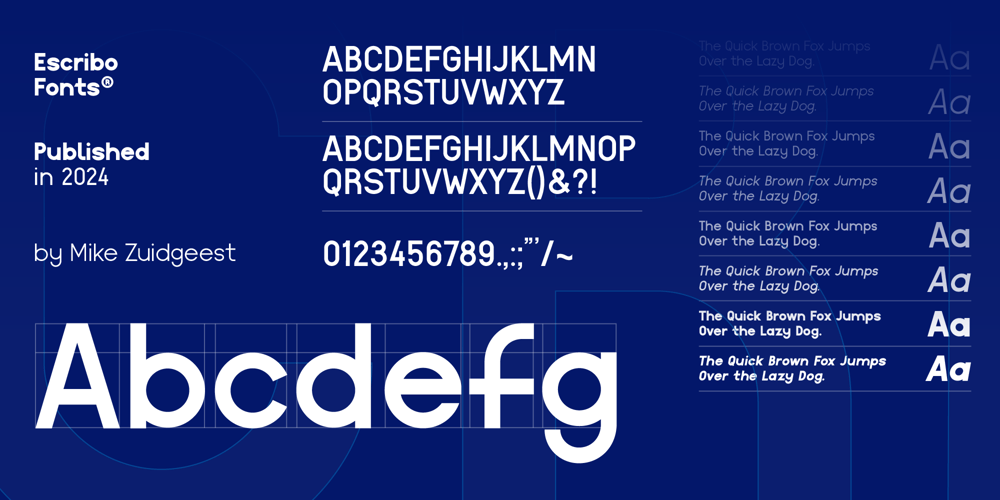
Escribo Font Family was designed by Mike Zuidgeest and published by Mike Zuidgeest. Escribo contains 8 styles and family package options. Escribo FontEscribo is a handcrafted sans-serif typeface by Dutch designer Mike Zuidgeest, based in Rotterdam. This font combines modern elegance with a unique character, standing out among fonts like Roboto, Lato, Open Sans, and Montserrat. Escribo comes in 8 weights, ranging from Regular and Italic to Black, offering versatility for various design needs.Elegance and VersatilityEscribo’s clean lines and balanced proportions make it perfect for diverse projects, from branding and editorial content to web design. Its refined simplicity enhances readability and adds sophistication to any application.Stylish and ModernEscribo brings a contemporary style to your designs. Its well-crafted letterforms ensure visual appeal and functionality, making it ideal for brands that value both aesthetics and usability.Royal AppealExuding a subtle sense of royalty, Escribo conveys confidence and authority. This quality makes it an excellent choice for brands aiming to project prestige and excellence.Strategic DesignMike Zuidgeest’s strategic approach ensures Escribo balances beauty and usability. Each glyph is crafted for optimal legibility across various media, making Escribo versatile for both digital and print formats.Handcrafted UniquenessEscribo’s handcrafted charm reflects Zuidgeest’s creative vision, adding authenticity and character. This distinctiveness makes Escribo stand out, offering a unique option for designers seeking originality.Ideal for BrandingEscribo’s elegance, style, and range of weights make it perfect for branding. It adapts seamlessly to various brand aesthetics, enhancing logos, taglines, and marketing materials. Escribo boosts brand recognition and leaves a lasting impression.ConclusionEscribo is more than a font; it’s a strategic design tool that combines elegance and style. Its unique, handcrafted quality and modern aesthetic make it ideal for elevating visual identities. Created by Mike Zuidgeest, Escribo blends form and function, ensuring your designs are both beautiful and effective. Choose Escribo for your next project and experience the difference a meticulously designed typeface can make.